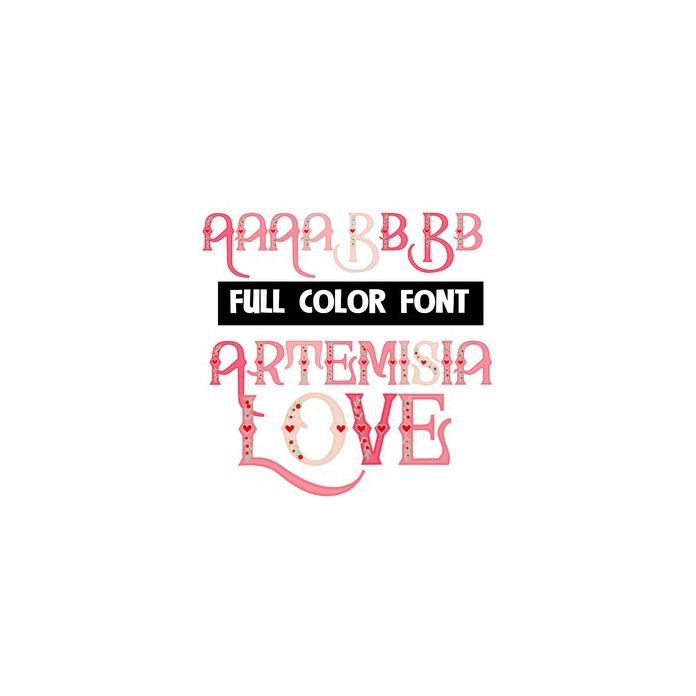
This full-color font features a heart-decorated, elaborate font with a flourished uppercase. There is a secondary alt case of both upper and lowercase letters in additional colors that you can access through Silhouette's glyph map.